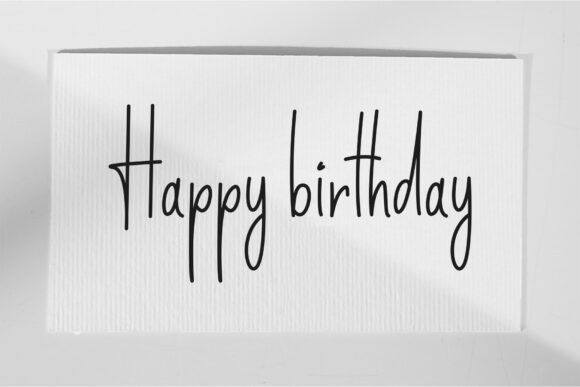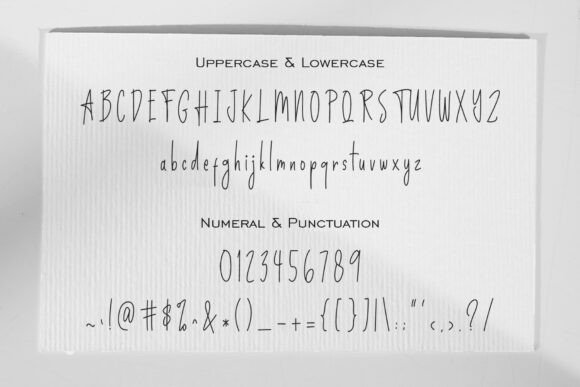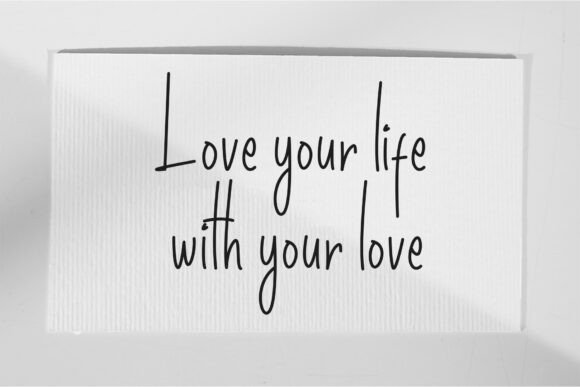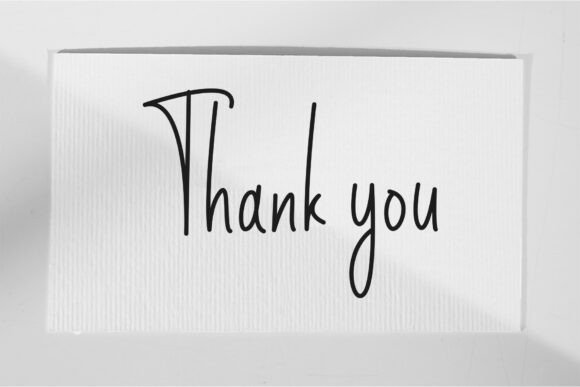
Introducing Handysone Font: Elevate Your Designs with Elegant Handwriting
Are you tired of using generic fonts that lack personality? Look no further than Handysone Font, a simple yet elegant handwritten font that will take your designs to the next level. With its neat and stunning handwriting style, Handysone Font is perfect for a wide range of projects, from quotes and recipes to greeting cards and menus.
The Charm of Handysone Font
Handysone Font boasts a natural character that will lead you to a better experience. Its unique and flowing script makes it an excellent choice for designers and crafters looking to add a personal touch to their work. Whether you’re creating a blog post, social media graphic, or print material, Handysone Font is sure to impress.
What Makes Handysone Font Special?
- Simple and Elegant: Handysone Font features a clean and sophisticated design that will elevate your projects with its classic appeal.
- Handwritten Style: The font’s handwritten style gives it a personal and approachable feel, making it perfect for designs that require a human touch.
- Natural Character: Handysone Font’s natural character makes it easy to read and understand, ensuring that your message is conveyed effectively.
- Versatile: This font is suitable for a wide range of projects, including quotes, recipes, greeting cards, menus, and more.
Handysone Font is an excellent choice for designers and crafters who want to add a touch of elegance and sophistication to their work. With its easy-to-read style and beautiful handwriting, this font is perfect for:
- Quote Designs: Create stunning quote designs that will inspire and motivate your audience.
- Recipe Cards: Add a personal touch to your recipe cards and make cooking more enjoyable.
- Greeting Cards: Create beautiful greeting cards for special occasions, such as birthdays, weddings, and holidays.
- Menus: Elevate your restaurant or cafe’s menu with a touch of elegance and sophistication.
Tips for Using Handysone Font
To get the most out of Handysone Font, here are some tips to keep in mind:
- Pair with Other Fonts: Experiment with pairing Handysone Font with other fonts to create a unique and visually appealing design.
- Use for Headings and Titles: Use Handysone Font for headings and titles to add a touch of elegance and sophistication.
- Experiment with Colors: Try out different colors to find the perfect combination that complements your design.